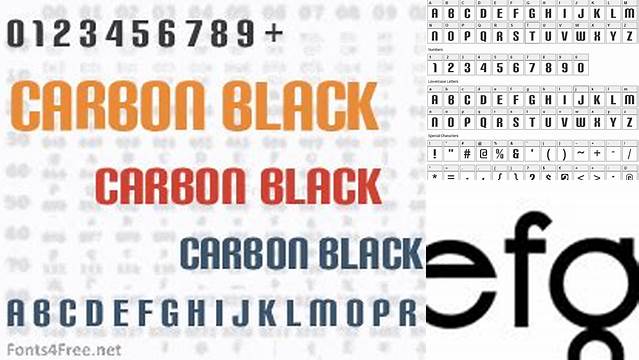
Hey guys! Are you on the hunt for a font that exudes modern sophistication and industrial strength? Look no further! In this article, we're diving deep into the world of Carbon Black font, exploring its unique characteristics, diverse applications, and most importantly, where you can find it for free download. Whether you're a seasoned designer, a budding creative, or just someone who appreciates the power of typography, this guide is your one-stop resource for everything Carbon Black. So, let's get started and unleash the potential of this fantastic typeface!
What is Carbon Black Font?
Carbon Black font is more than just a typeface; it's a statement. Known for its bold, assertive lines and contemporary aesthetic, this font commands attention and adds a touch of industrial chic to any project. Characterized by its strong geometric forms and clean, sharp edges, Carbon Black evokes a sense of strength, reliability, and modern innovation. Its robust design makes it incredibly versatile, suitable for a wide array of applications, from impactful headlines and eye-catching logos to sleek website designs and compelling print materials. The font's inherent readability ensures that your message is not only visually striking but also easily digestible, making it a favorite among designers aiming to make a lasting impression. Think of brands that want to convey power and modernity – they often lean towards fonts like Carbon Black to communicate their core values effectively. Its unique blend of strength and style makes it a standout choice in the crowded world of typography, helping your work to resonate with a contemporary audience. Furthermore, the distinct character shapes and balanced letterforms of Carbon Black ensure that it performs well in both large and small sizes, offering consistency across different mediums. Whether you're crafting a billboard advertisement or designing business cards, the font maintains its clarity and impact, ensuring your message is always delivered with precision and flair. Its versatility also extends to different design styles, seamlessly integrating into minimalist layouts as well as more complex, layered compositions. By choosing Carbon Black, you're not just selecting a font; you're investing in a visual tool that elevates your designs and communicates your message with authority and style.
Key Characteristics of Carbon Black Font
When you're choosing a font, it's crucial to understand its key characteristics. This helps you determine if it's the right fit for your project. Carbon Black font boasts several distinctive traits that set it apart. First and foremost, its boldness is immediately noticeable. The thick strokes and strong letterforms exude confidence and make a visual statement. This is perfect for headlines, titles, and branding materials where you need to grab attention. Beyond its boldness, Carbon Black features a modern and geometric design. The clean lines and sharp angles give it a contemporary feel, making it suitable for tech startups, forward-thinking companies, and any project aiming for a sleek, cutting-edge look. The absence of unnecessary frills ensures that the font remains uncluttered and highly readable, even in smaller sizes. The legibility of Carbon Black is another crucial characteristic. Despite its strong personality, the font maintains excellent readability, making it suitable for body text as well as display purposes. This versatility is a significant advantage, allowing you to use Carbon Black across various elements of your design without sacrificing clarity. The consistent letter spacing and carefully crafted character shapes contribute to its overall readability, ensuring that your message is easily understood by the audience. Furthermore, Carbon Black often includes a variety of weights and styles, such as regular, italic, bold, and black. This provides designers with a flexible toolkit to create visual hierarchy and add emphasis within their designs. The different weights allow for nuanced typography, enabling you to create contrast and visual interest while maintaining a cohesive look. For example, you might use the regular weight for body text and the bold weight for headings to create a clear distinction between different sections of your content. Finally, the versatility of Carbon Black is one of its most appealing features. It works exceptionally well in a wide range of applications, from digital interfaces and websites to print materials such as posters and brochures. Its adaptable nature means you can confidently use it across different platforms and mediums, ensuring a consistent brand identity. Whether you're designing a minimalist website or a complex marketing campaign, Carbon Black offers the flexibility and visual impact needed to succeed. In summary, Carbon Black font is characterized by its boldness, modern geometric design, excellent legibility, variety of weights and styles, and overall versatility, making it a powerful choice for designers seeking a contemporary and impactful typeface.
Applications of Carbon Black Font
The beauty of Carbon Black font lies in its adaptability. Its bold and modern aesthetic makes it a versatile choice for a myriad of design projects. Let's explore some of the most common and impactful applications. Branding and Logo Design is where Carbon Black truly shines. Its strong, assertive lines convey confidence and modernity, making it an excellent choice for companies looking to project a bold and innovative image. Think tech startups, creative agencies, and businesses in the manufacturing or engineering sectors – Carbon Black can help them establish a strong visual identity. A logo designed with Carbon Black stands out, making a memorable impression on potential customers and partners. Its geometric forms and clean edges ensure that the logo remains legible and impactful across various sizes and mediums, from business cards to billboards. The font's versatility also allows for creative variations in the logo design, such as using different weights or incorporating unique letterforms to further enhance the brand's identity. Web Design and User Interfaces benefit greatly from the font's legibility and contemporary feel. Carbon Black works well for headlines, navigation menus, and body text, creating a cohesive and user-friendly experience. Its clean design ensures that text remains readable on screens of all sizes, which is crucial for responsive web design. The font's modern aesthetic also complements the sleek, minimalist designs often found in contemporary websites and applications. By using Carbon Black in web design, you can create a visually appealing and engaging online presence that reflects a forward-thinking brand identity. Print Materials such as posters, brochures, and business cards also benefit from Carbon Black's impact. Its boldness ensures that headlines and key information grab the reader's attention, while its legibility makes it suitable for body text. The font's strong presence on printed materials helps to create a professional and memorable impression. Whether you're designing a promotional poster or a corporate brochure, Carbon Black can help you communicate your message effectively and stylishly. Its versatility extends to various print styles, from minimalist designs to more elaborate layouts, making it a valuable asset for any print project. Editorial Design in magazines and newspapers can also leverage Carbon Black to create visually striking layouts. Its bold nature is perfect for headlines and subheadings, drawing the reader into the content. The font's modern style complements a variety of editorial themes, from technology and business to lifestyle and culture. By incorporating Carbon Black into editorial designs, you can enhance the visual appeal of your publications and create a more engaging reading experience. Its clean and legible design ensures that the content remains accessible, even in long-form articles. In essence, Carbon Black font is a versatile and impactful choice for a wide range of design applications. From branding and web design to print materials and editorial layouts, its bold, modern aesthetic and excellent legibility make it a valuable asset for any creative project. By understanding its potential applications, you can effectively leverage Carbon Black to enhance your designs and communicate your message with style and authority.
Alternatives to Carbon Black Font
If you're having trouble finding Carbon Black font for free download, or if you're simply looking for similar options, fear not! There are plenty of fantastic alternatives that capture the same bold, modern aesthetic. Let's explore some of the best contenders. Montserrat is a popular choice that often comes up in discussions about Carbon Black alternatives. This geometric sans-serif font, available on Google Fonts, boasts a clean and contemporary design, making it perfect for headlines, body text, and branding materials. Montserrat's versatility and excellent legibility make it a go-to option for designers seeking a modern typeface with a strong presence. Its various weights and styles allow for nuanced typography, enabling you to create visual hierarchy and add emphasis within your designs. Whether you're working on a website, a print project, or a logo, Montserrat offers the flexibility and visual impact needed to succeed. Oswald is another excellent alternative available on Google Fonts. Known for its condensed proportions and bold letterforms, Oswald exudes a sense of strength and modernity. This font is particularly well-suited for headlines and titles, grabbing the reader's attention and making a lasting impression. Oswald's clean lines and geometric shapes make it a versatile choice for a wide range of design applications, from web design to print materials. Its condensed design also makes it ideal for projects where space is limited, allowing you to fit more text without sacrificing readability. Roboto is a classic sans-serif font that offers a clean and approachable look. Available on Google Fonts, Roboto is known for its excellent legibility and versatility, making it a reliable choice for both body text and display purposes. Its friendly and modern design makes it suitable for a wide range of projects, from websites and applications to print materials and presentations. Roboto's various weights and styles provide designers with a flexible toolkit to create visual interest and hierarchy. Whether you're crafting a minimalist website or a complex marketing campaign, Roboto offers the balance of readability and visual appeal needed to communicate your message effectively. Bebas Neue is a widely used sans-serif font known for its tall and condensed letterforms. While not a direct substitute for Carbon Black, Bebas Neue shares a similar modern and impactful aesthetic. This font is particularly well-suited for headlines and titles, adding a touch of sophistication and style to any design. Its clean lines and geometric shapes make it a versatile choice for various projects, from posters and brochures to websites and social media graphics. Bebas Neue's condensed design also makes it ideal for projects where space is at a premium. Raleway is a stylish sans-serif font that blends elegance with modernity. Available on Google Fonts, Raleway offers a refined and sophisticated aesthetic, making it suitable for a wide range of design applications. Its clean lines and geometric shapes give it a contemporary feel, while its subtle curves add a touch of warmth and personality. Raleway's versatility makes it a popular choice for branding, web design, and print materials. Its various weights and styles allow for nuanced typography, enabling you to create visually appealing and engaging designs. In conclusion, guys, if you're seeking alternatives to Carbon Black font, there are numerous excellent options available. Fonts like Montserrat, Oswald, Roboto, Bebas Neue, and Raleway offer similar bold and modern aesthetics, providing you with a diverse range of choices for your design projects. By exploring these alternatives, you can find the perfect typeface to complement your creative vision and communicate your message effectively.